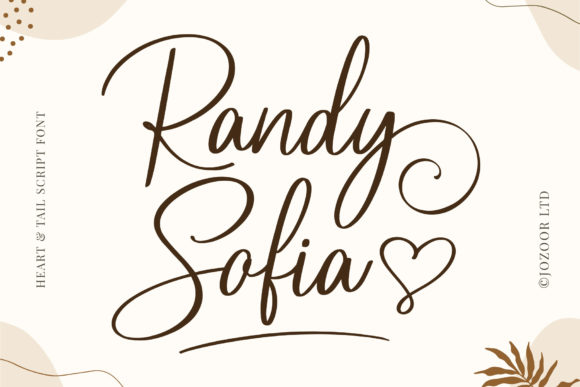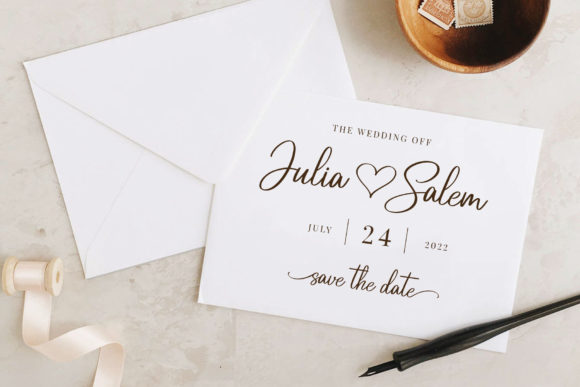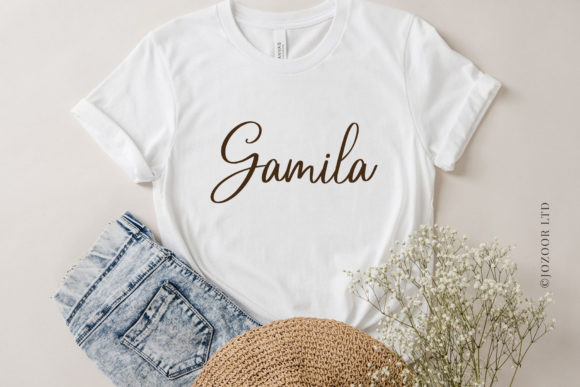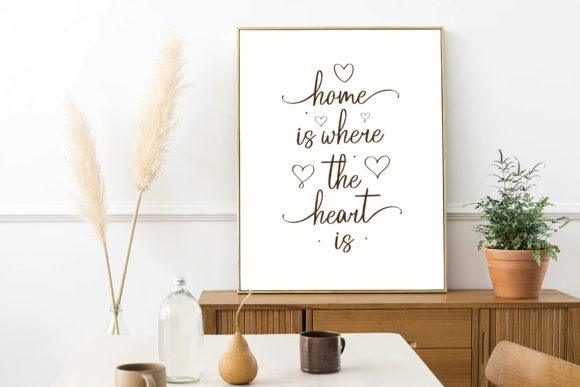
Randy Sofia Font: Elegant Calligraphy for Wedding Designs
About the Randy Sofia Font
From logos to headlines, the Randy Sofia Font is the perfect choice for making a lasting impression. Randy Sofia is a romantic and sweet calligraphy typeface with characters that dance along the baseline. It will add a luxury spark to any design project that you wish to create! This font is PUA encoded which means you can access all of the amazing glyphs and ligatures with ease!
Randy Sofia’s elegant, flowing forms are ideally suited for projects requiring a touch of luxury and romance. It excels in headlines, short paragraphs, invitations, and branding applications where its delicate charm can shine. Consider it for logos, wedding stationery, or packaging for high-end products. However, its low x-height and decorative nature make it unsuitable for large blocks of body text or UI elements where readability is paramount.
Pairing Randy Sofia effectively requires a contrasting typeface to provide balance. A clean, geometric sans-serif like Montserrat or a modern serif such as Playfair Display would offer excellent contrast and visual stability. For a more playful feel, a simple script font could also be considered, but ensure it is less ornate than Randy Sofia itself to prevent visual overload.
The overall personality of Randy Sofia is undeniably romantic and sophisticated, conveying a sense of refined elegance and timeless charm. Its graceful curves and delicate flourishes contribute to a feeling of luxury and exclusivity.
Randy Sofia Font Usage Examples
Randy Sofia Font Example